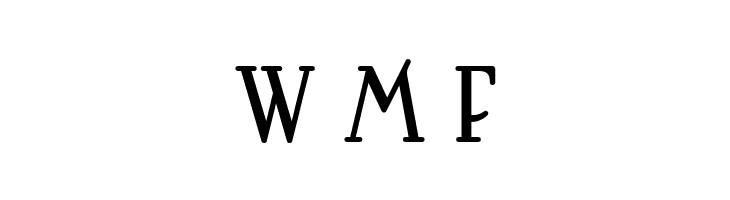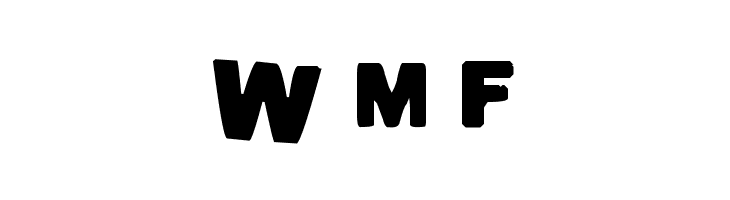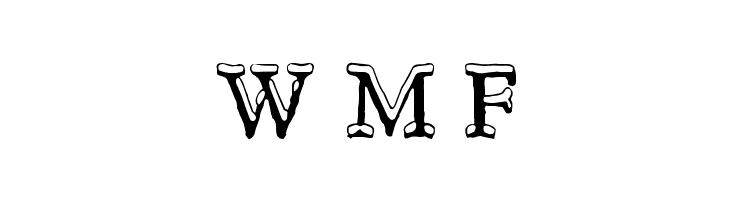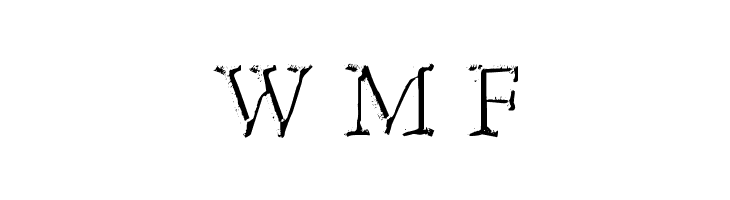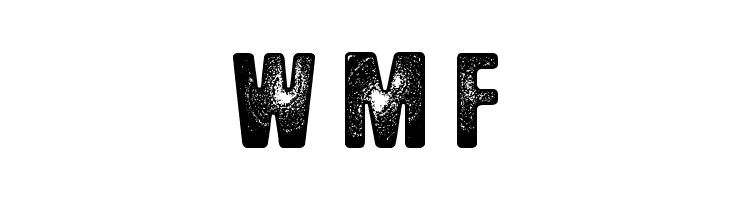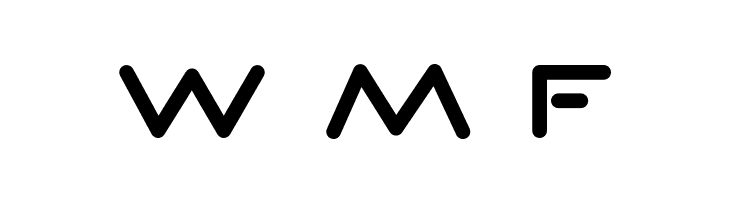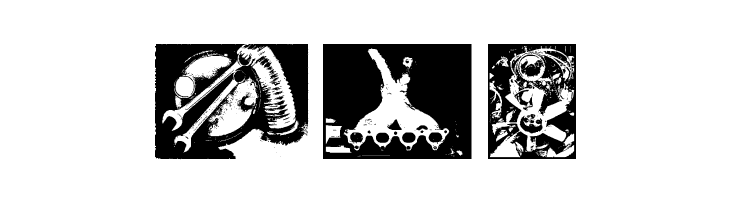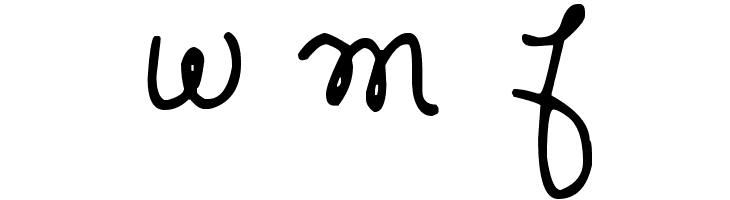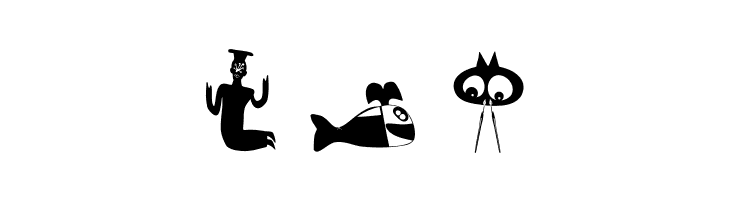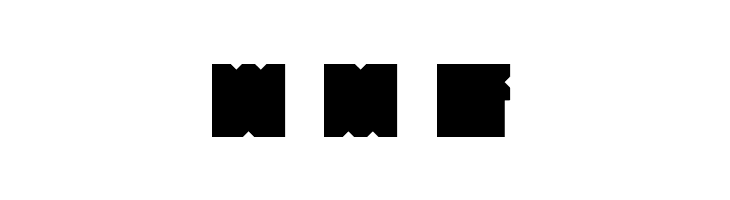
• Hotel Coral Essex
A bold, distressed font with a vintage, textured appearance.
• Houki Regular
A modern, bold font with rounded edges and a geometric design.
• How Can I Organize My Garage?
Automotive-themed pictorial display font using car parts and tools for each character.
• How Square can you get?
• Hula Skirt Girl
A playful, handwritten font with dynamic strokes and a whimsical style.
• Hullunkruunu
• Hultog Engraved
An engraved, textured font with a vintage and classic appeal.
• Hultog Snowdrift
A playful, decorative font with bold, rounded edges and a whimsical, hand-drawn style.
• HumanPartsStore
A whimsical and eclectic collection of bold, imaginative pictorial symbols.
• Hut Sut Ralston NF
A whimsical, vintage-style font with elegant curves and subtle serifs.